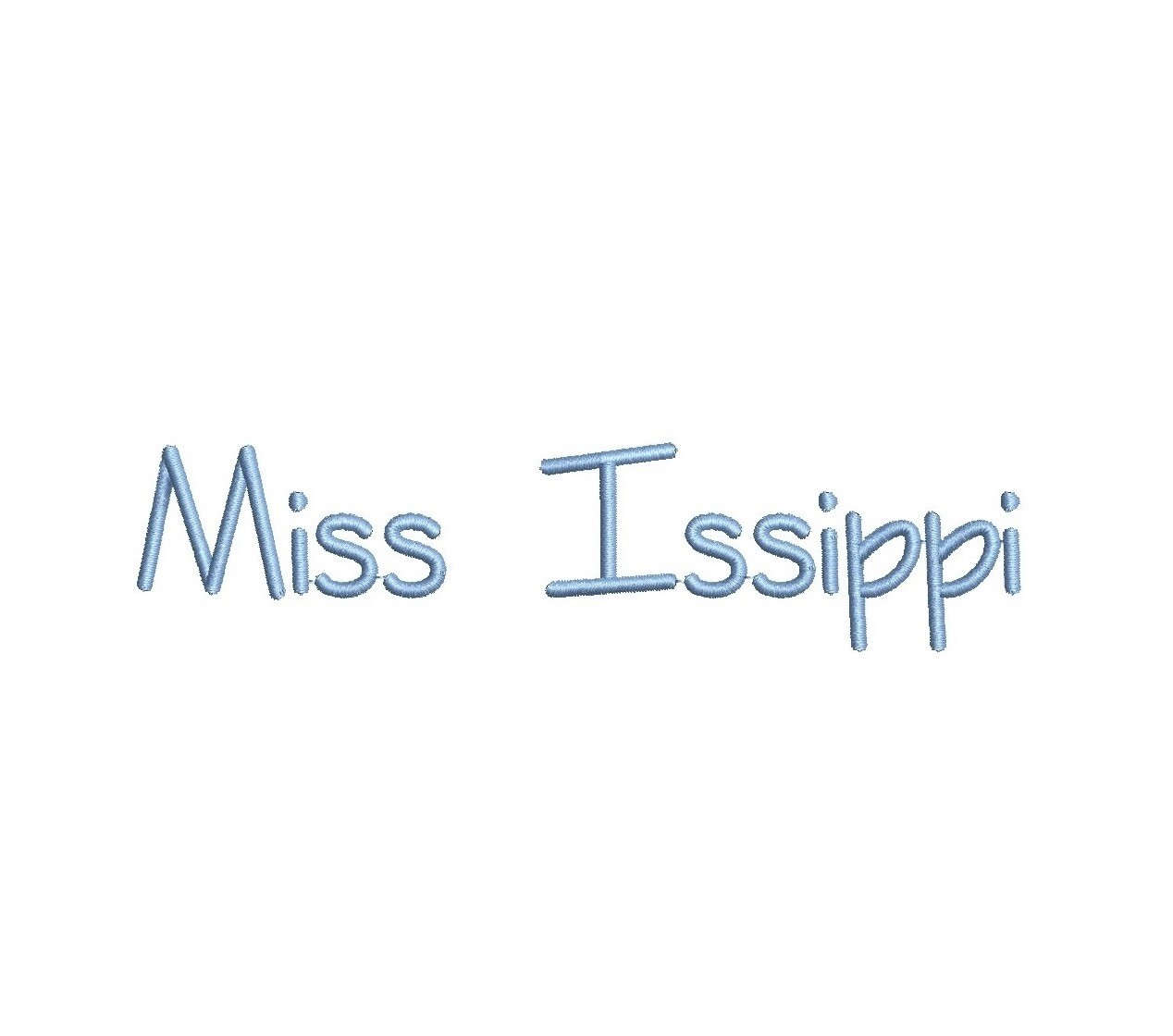
Unleash your creativity with Miss Issippi Regular ESA font, a charming choice for your embroidery designs. Infused with southern grace, this font exudes elegance and style. Compatible with Wilcom Studio e4.5.6 and Hatch 3 versions and up, it seamlessly integrates into your digitization process. Craft captivating monograms, logos, and decorative accents effortlessly, adding a touch of southern charm to your creations. Elevate your embroidery projects with a hint of nostalgia and make them truly standout. Don't miss the chance to embrace the beauty of the South with Miss Issippi Regular ESA font. Experience the allure of southern traditions in your designs today!